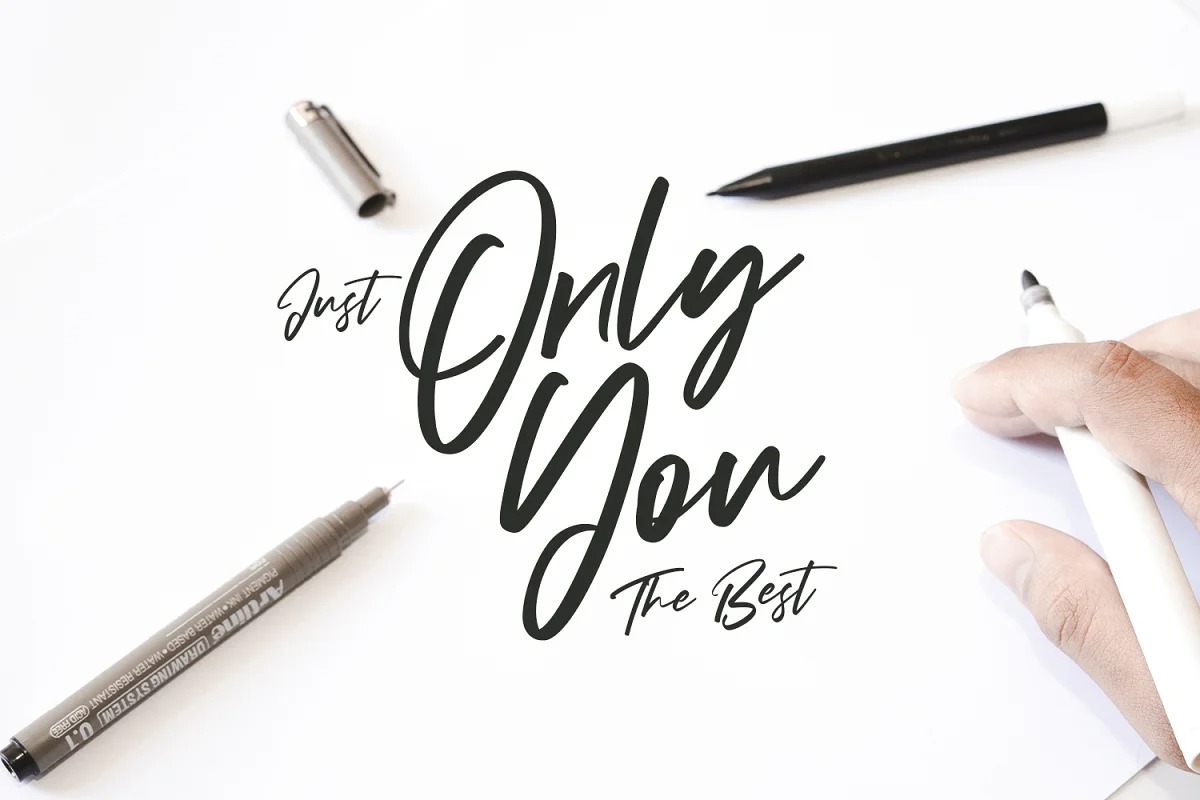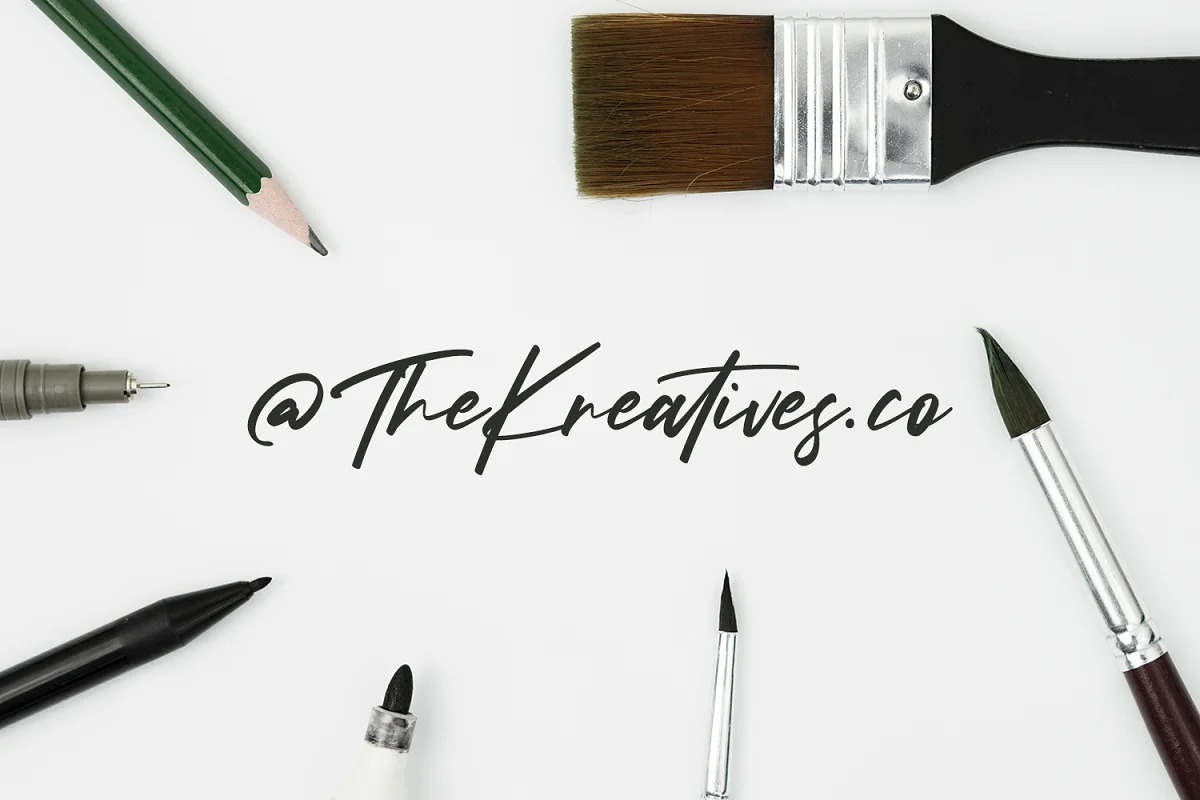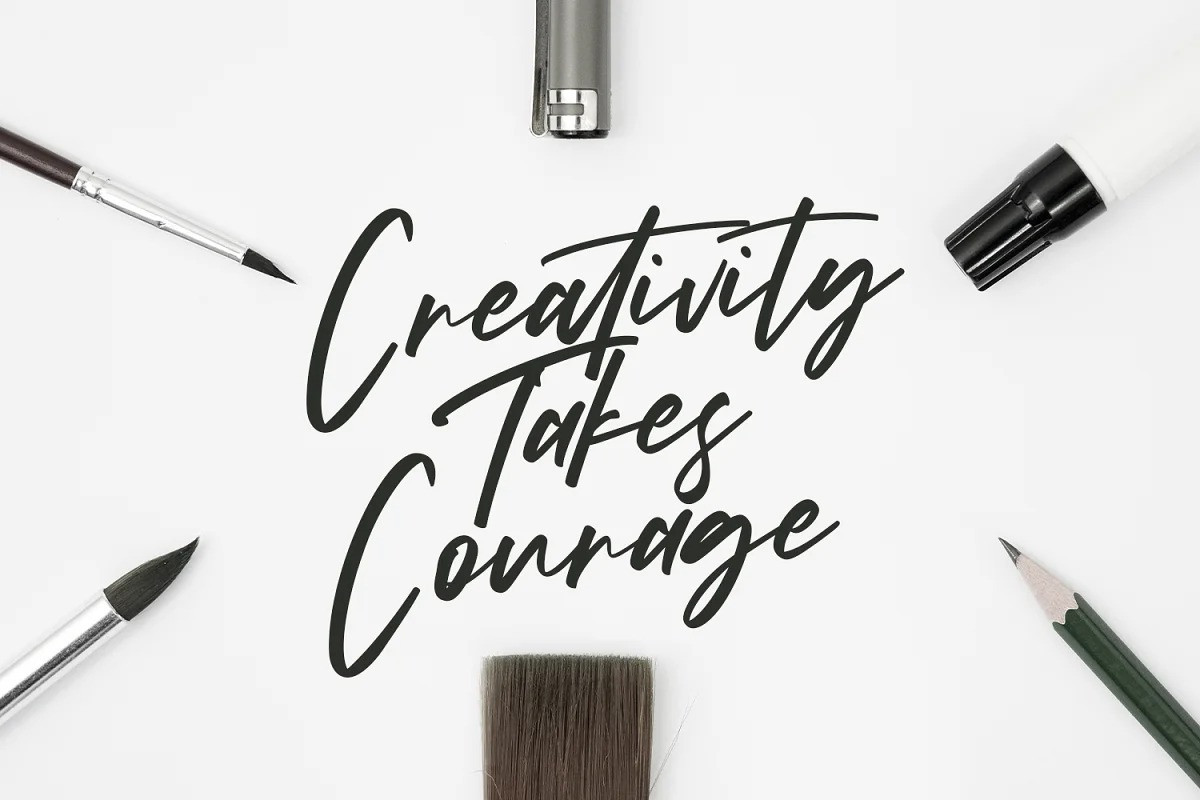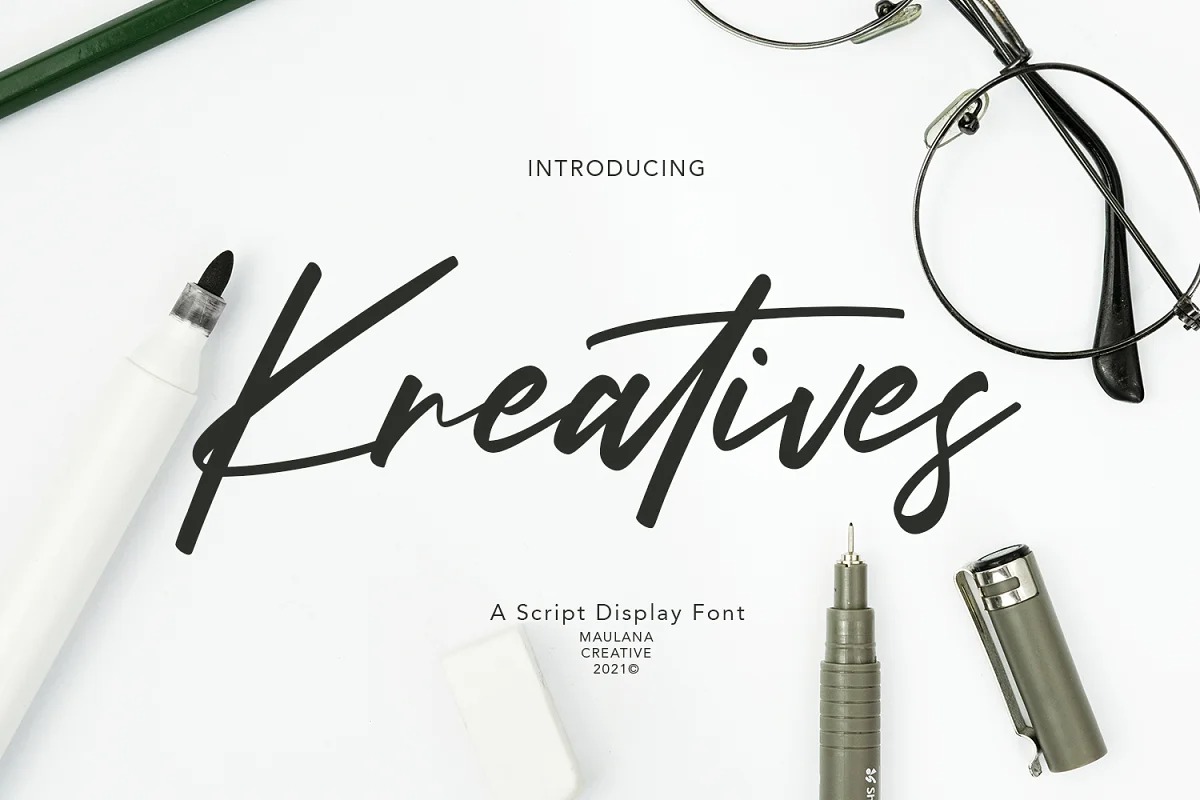
Kreatives Font
Kreatives Handwritten Font
This typeface designed by Maulana Creative is a signature handwriting font script that makes with natural line handwriting. It has Opentype features ligatures of character, To give you an extra creative work. Kreatives script display font support multilingual more than 100+ language. This font is good for logo design, Social media, Movie Titles, Books Titles, a short text even a long text letter and good for your secondary text font with sans or serif. Make a stunning work with Kreatives font.